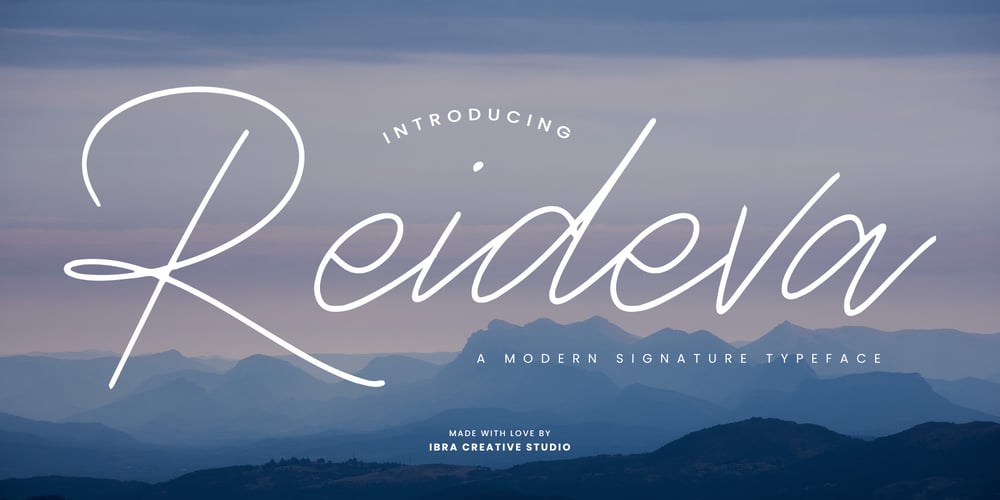
Reideva Font Family was designed by Roisatul Azizah and published by IbraCreative. Reideva contains 1 styles and family package options. Reideva – A Modern Signature TypefaceReideva, a modern signature typeface, exudes sophistication and individuality with its sleek lines and fluid strokes. Each letter in Reideva is meticulously crafted to emulate the elegance of a handwritten signature, offering a personalized touch to any design. Whether used for branding, invitations, or social media posts, Reideva adds a contemporary flair while maintaining a sense of timeless grace. Its versatility and effortless style make it a perfect choice for those seeking to leave a lasting impression with their digital signatures or typographic designs. Reideva is perfect for branding projects, logo, wedding designs, social media posts, advertisements, product packaging, product designs, label, photography, watermark, invitation, stationery, game, fashion and any projects.Fonts include multilingual support for; Afrikaans, Albanian, Czech, Danish, Dutch, English, Estonian, Finnish, French, German, Hungarian, Italian, Latvian, Lithuanian, Norwegian, Polish, Portuguese, Slovak, Slovenian, Spanish, Swedish.